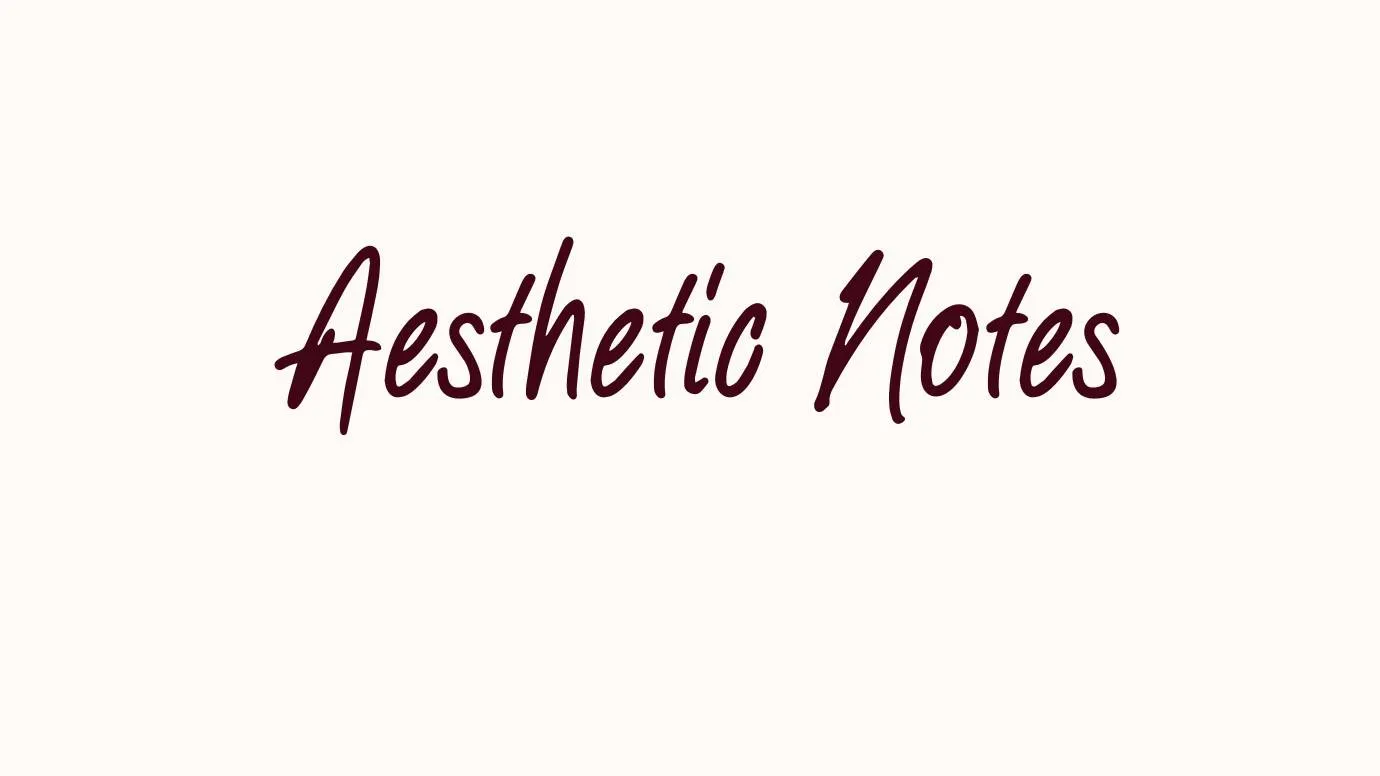
Aesthetic Notes is a very nice and friendly script typeface. It was designed by Letterhend. You can make all types of projects by using this font. It is also good for making digital notes also. It is available in both formats, TrueType Font and OpenType Font.
It is also good for pairing with other fonts like brothership font to give a more elegant and nice look to your projects.
Aesthetic Notes Font